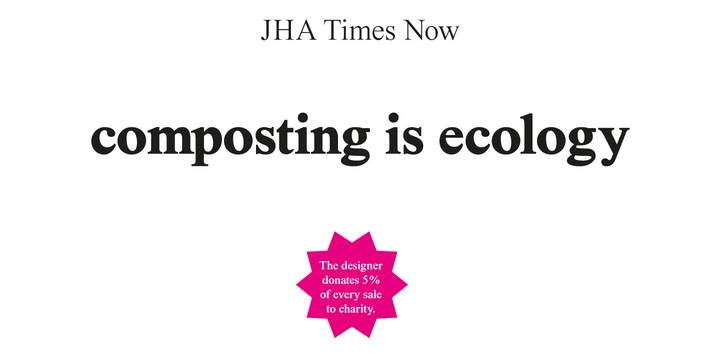
JHA Times Now Font
This JHA Times Now Font is perfect for contemporary news publications, modern newspaper layouts, breaking news graphics, digital journalism platforms, current affairs magazines, real-time reporting materials, news broadcast graphics, editorial website designs, urgent communication systems, and time-sensitive media applications.
What makes this JHA Times Now Font exciting is its contemporary urgency that captures the immediate nature and real-time precision of modern journalism. The font features dynamic letterforms with journalistic authority that convey timeliness, news credibility, and editorial excellence. Its current character and media-focused design make it ideal for organizations seeking to communicate breaking news authority, journalistic integrity, and contemporary media excellence in fast-paced information markets.
The JHA Times Now Font family includes light, regular, medium, and bold weights with news-focused alternates and editorial variants. This comprehensive journalistic font family provides designers with authoritative typographic tools to create timely compositions while maintaining the news character essential for media organizations and contemporary publishing communications.
News organizations and digital media companies consistently choose JHA Times Now Font Free Download for projects requiring journalistic authority and contemporary credibility. This font's distinctive news character perfectly captures the editorial excellence and real-time reporting that resonate with audiences who value accurate journalism, breaking news coverage, and professional media delivery.
The journalistic construction of JHA Times Now Font showcases precisely crafted letterforms with news proportions that ensure exceptional readability across all media applications. Its authoritative appearance and contemporary urgency create credible impressions while maintaining the clarity necessary for effective news communication and digital journalism materials.
Professional designers appreciate how JHA Times Now Font brings immediate editorial authority and news credibility to brand communications. The font's journalistic nature allows media organizations to communicate breaking news excellence and editorial integrity while maintaining the professional quality necessary for effective positioning in competitive news and digital media markets.
The timely appeal of JHA Times Now Font makes it particularly effective for brands emphasizing real-time reporting, editorial authority, and contemporary journalism. Its urgent character resonates strongly with audiences who appreciate accurate news coverage, timely information delivery, and media organizations that represent authoritative journalism and professional news excellence.
Whether developing materials for digital news platforms or creating content for contemporary media outlets, JHA Times Now Font Free Download provides the journalistic typographic foundation that news brands need to communicate their editorial authority, breaking news excellence, and the timely precision that defines professional contemporary journalism and real-time media achievement.